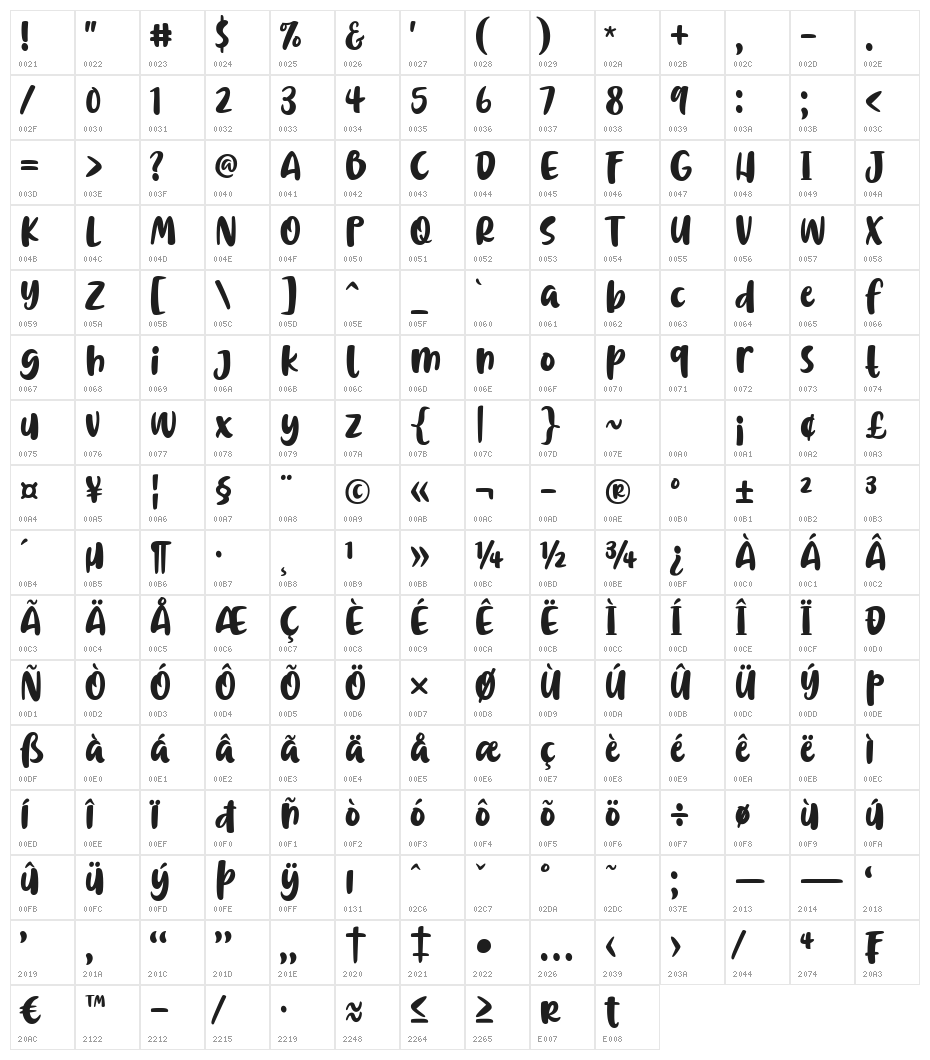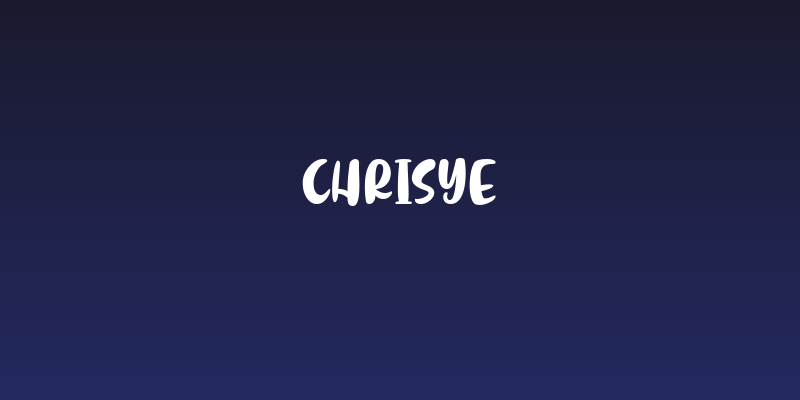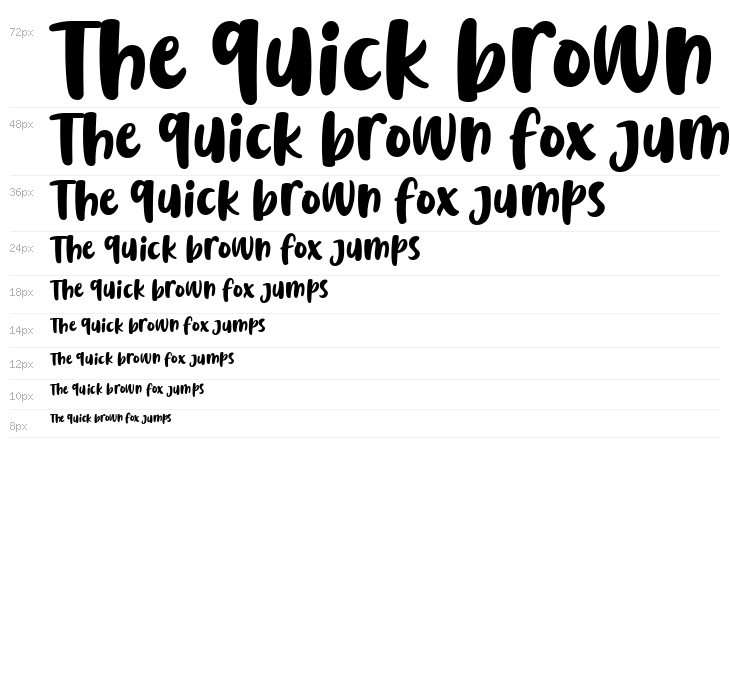
Chrisye Font
Chrisye Description
This font features a bold, playful, and energetic style with a handwritten appearance. The letters are rounded and slightly irregular, giving a casual and friendly vibe. The uppercase and lowercase letters maintain a consistent flow, while the numerals and special characters complement the overall design. The strokes are thick and uniform, contributing to its bold presence. This font is ideal for projects that require a personal touch or a lively, informal tone.
| Use Case | Logos, Headlines, Social media graphics |
| Proposed Projects | Ideal for greeting cards, children's books, playful branding, and social media graphics. |